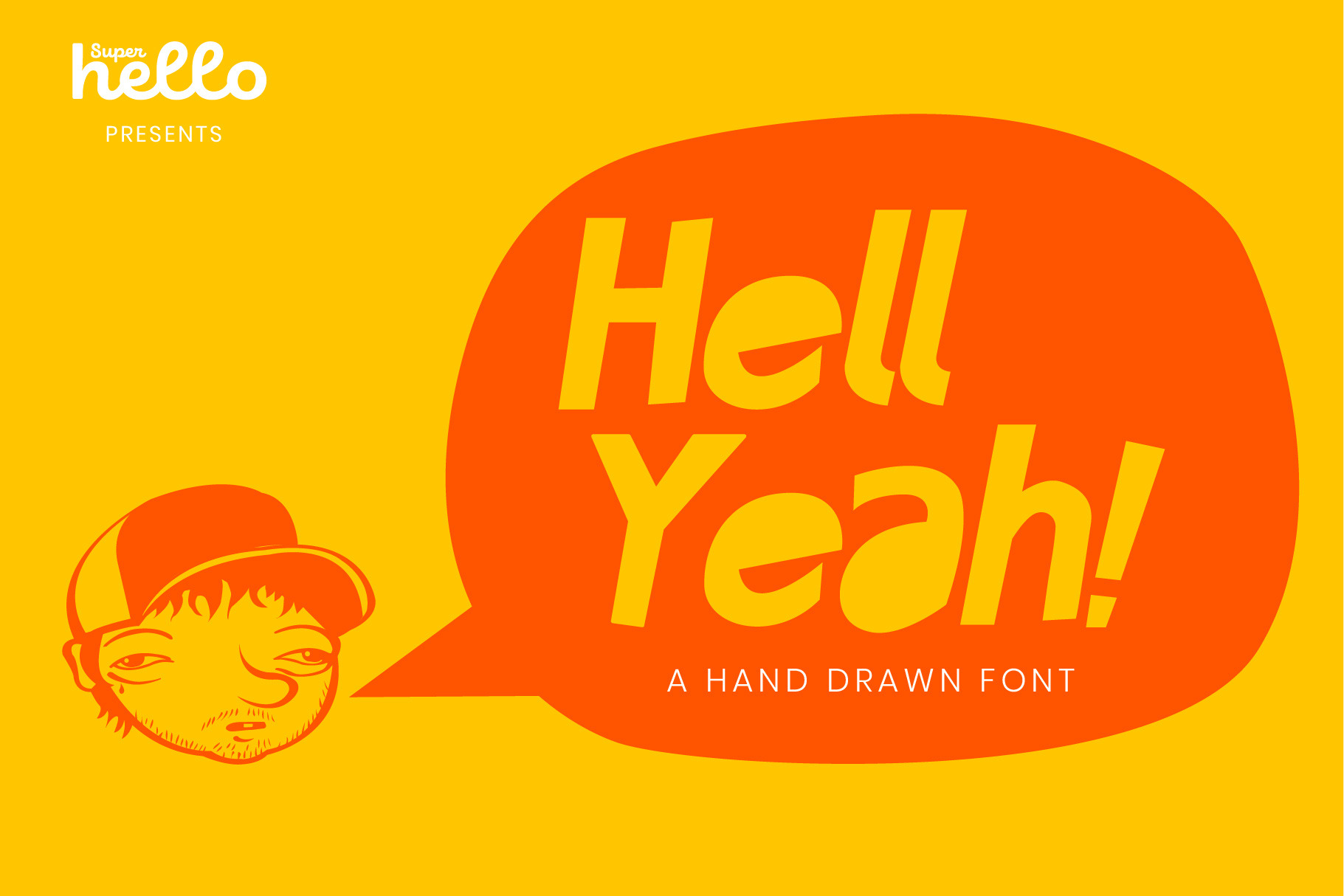
Hell Yeah - Hand-drawn Font
A loose, fun and hand-drawn font designed for headlines and call outs. This font mixes well with illustrations and handcrafted styles.